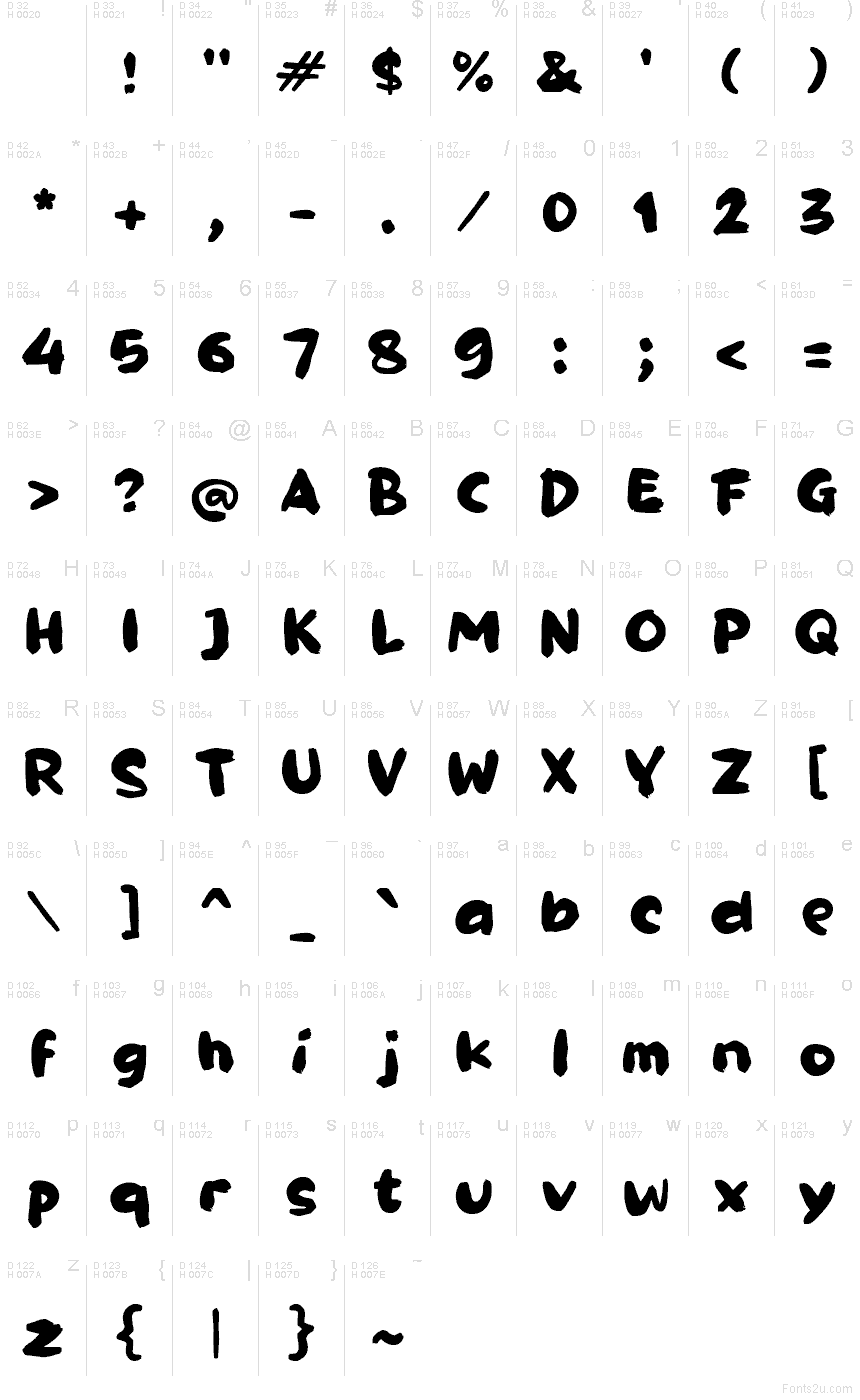
Qaadeer
Qaadeer font by wep is a free brush font that looks like it’s been laid down with a thick, inky marker on rough paper. The letters are bold, chunky, and a little smudged at the edges, giving every word a noisy, hand-painted presence. There’s an easy, casual rhythm to the strokes that feels friendly and unpolished in the best way—like a quick sign made by someone who’s having fun, not chasing perfection.
Using Qaadeer, this free font shines on poster headlines, food packaging, streetwear graphics, event flyers, social media promos, and playful branding. The generous weight and loose curves keep text readable even at a distance, while the irregular edges inject instant character into flat layouts. Try pairing Qaadeer with a clean geometric sans in smaller copy to let its loud brush texture stay the star.